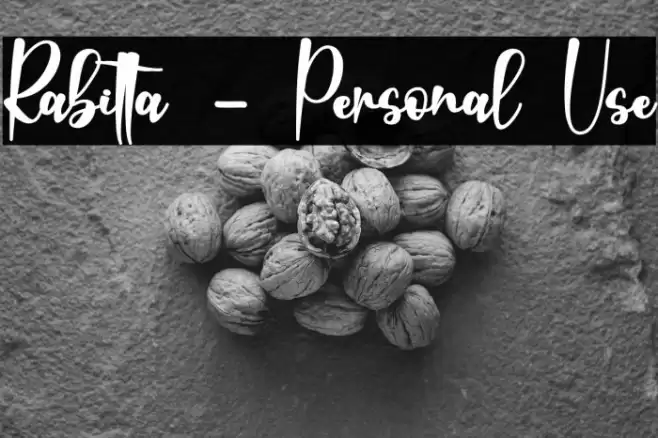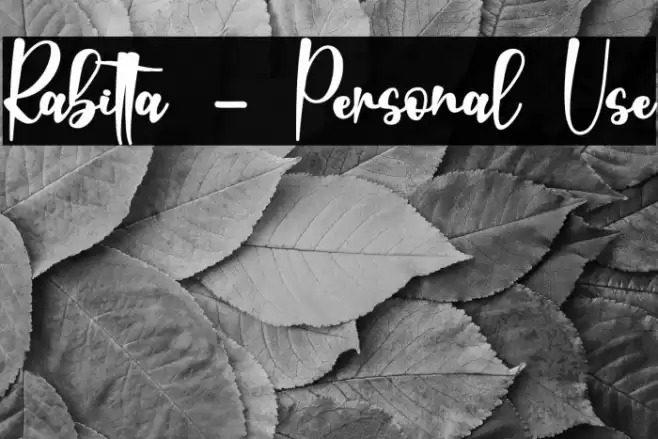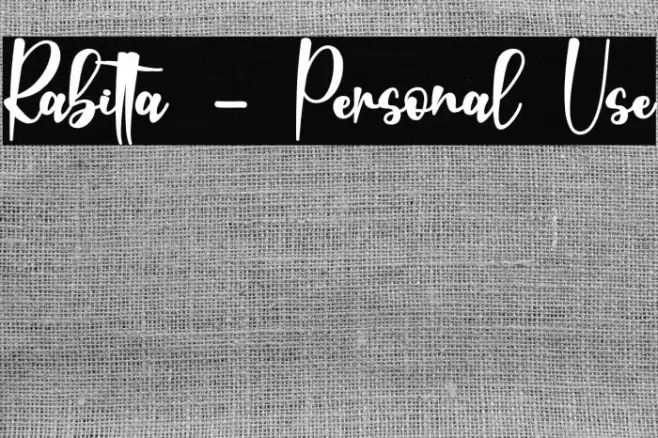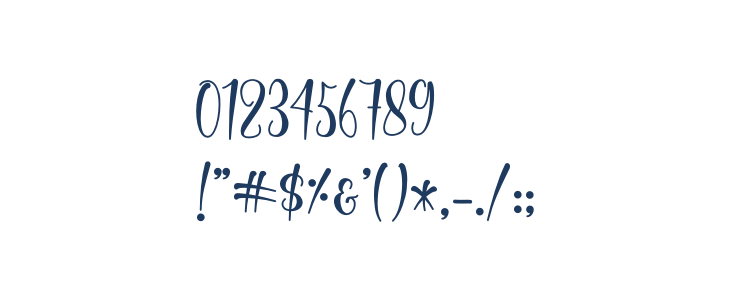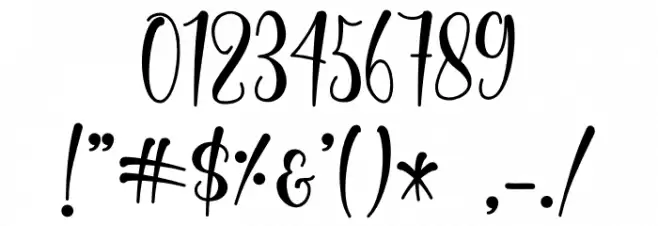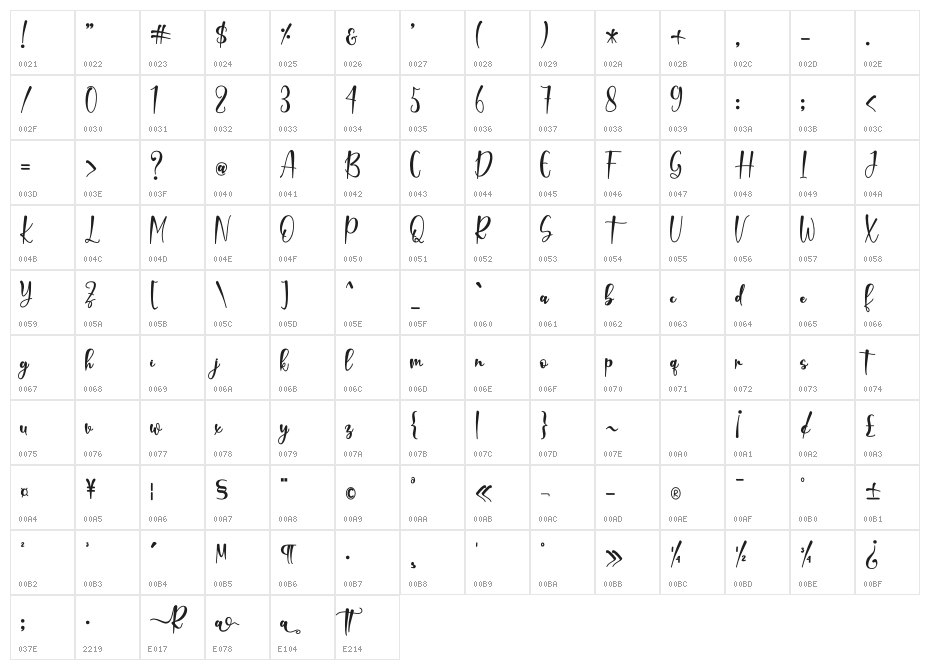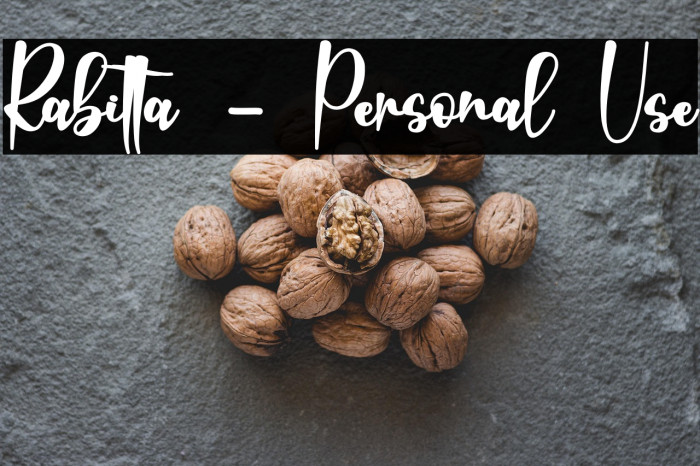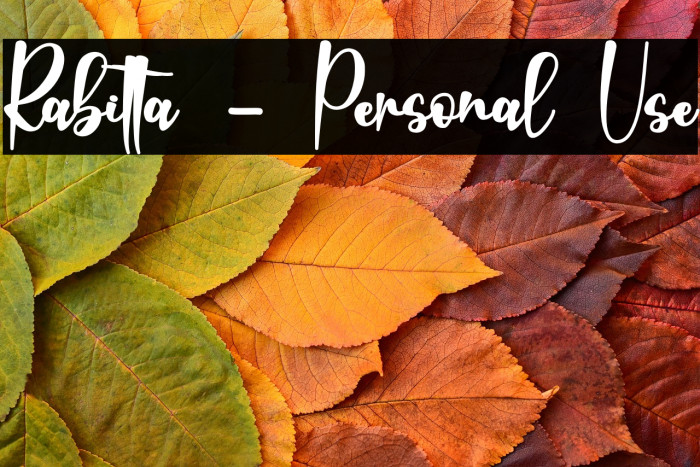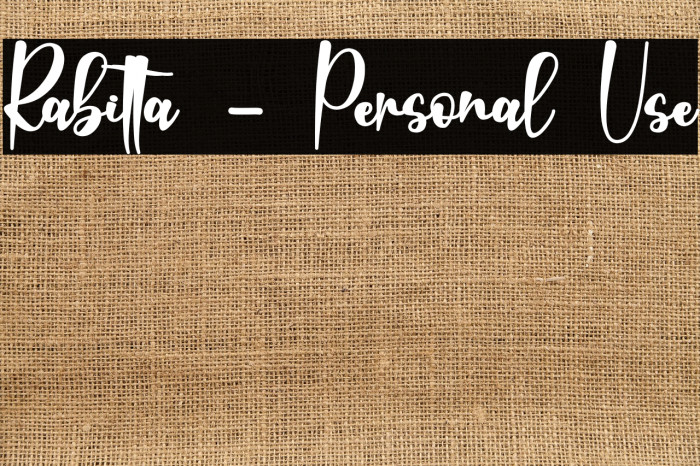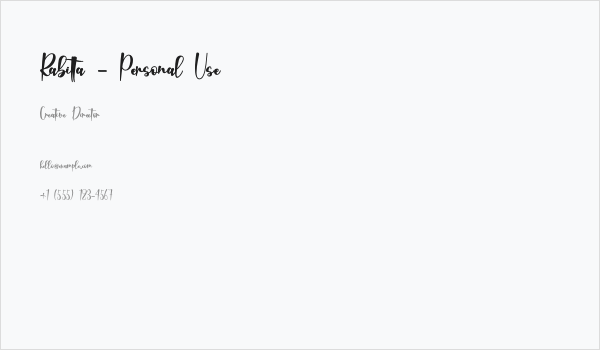
Rabitta - Personal Use Font
Rabitta - Personal Use Description
This font features a dynamic and flowing script style, characterized by its elegant and fluid letterforms. The uppercase letters exhibit a tall and narrow structure with sweeping curves, while the lowercase letters maintain a consistent and harmonious flow. The numerals are designed with a playful yet sophisticated touch, complementing the overall aesthetic. Special characters are crafted with the same attention to detail, ensuring a cohesive look. The font's design is both modern and timeless, making it versatile for various creative applications.
A dynamic and flowing script font with elegant, fluid letterforms from Uncategorized fonts.
- Proposed Projects: Ideal for wedding invitations, branding, greeting cards, and elegant packaging designs.
- Use Case: Logos, Headlines, Invitations